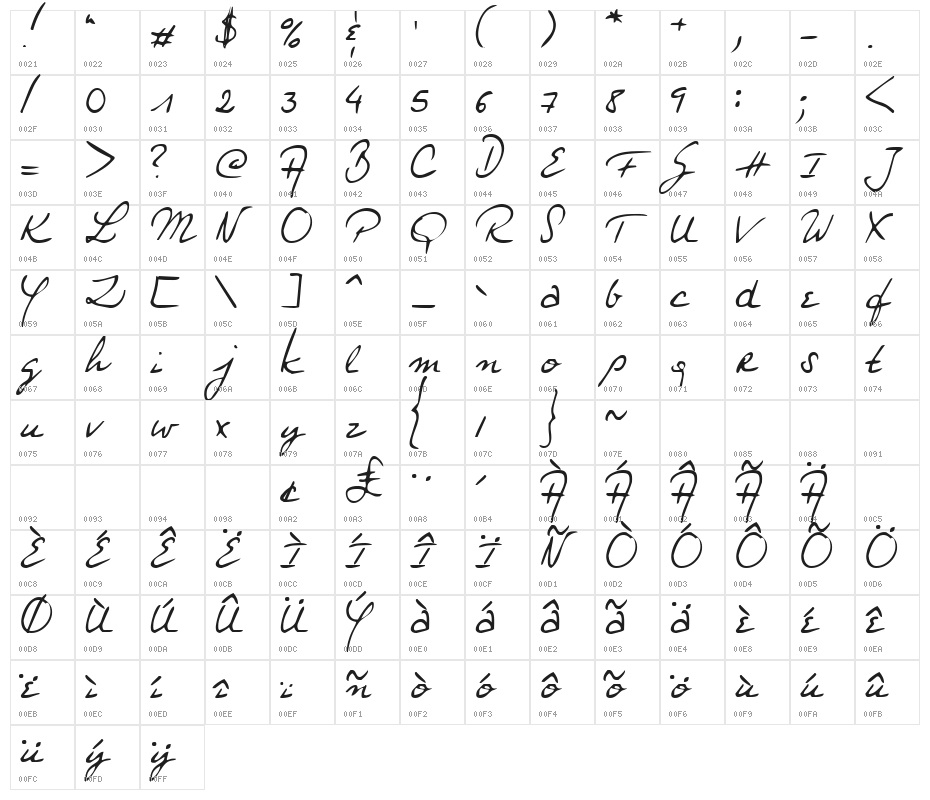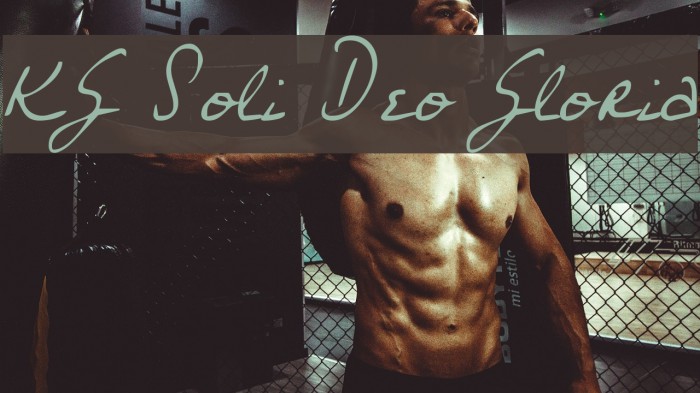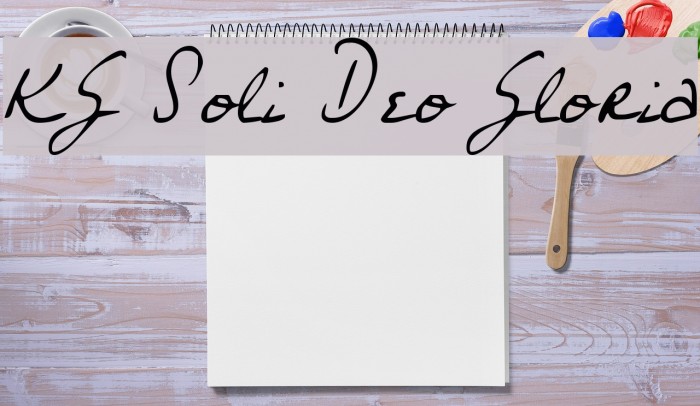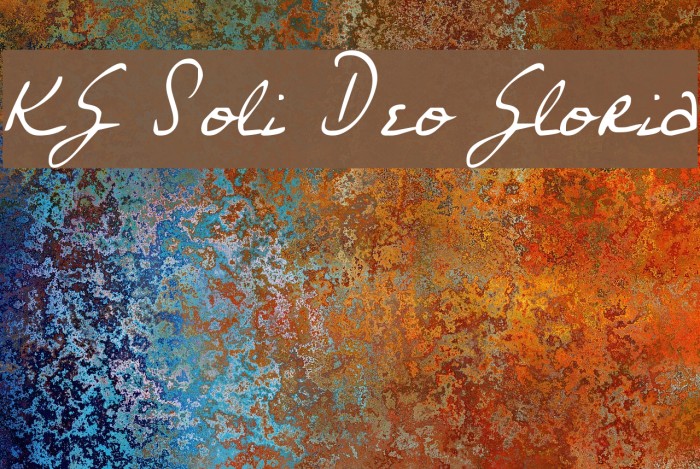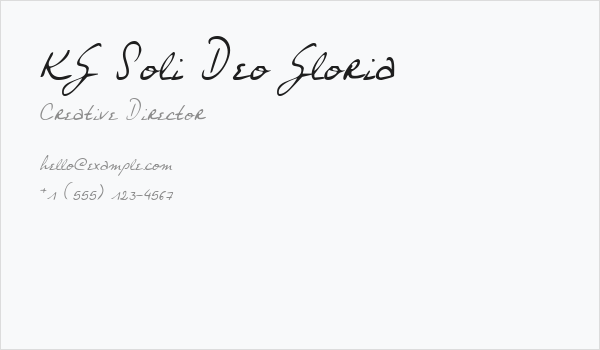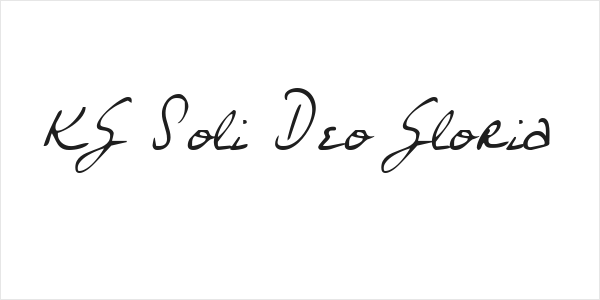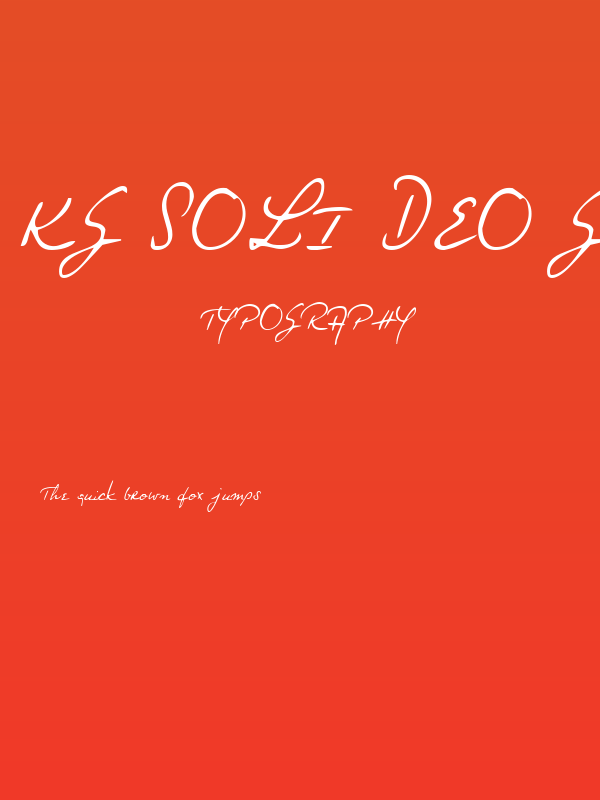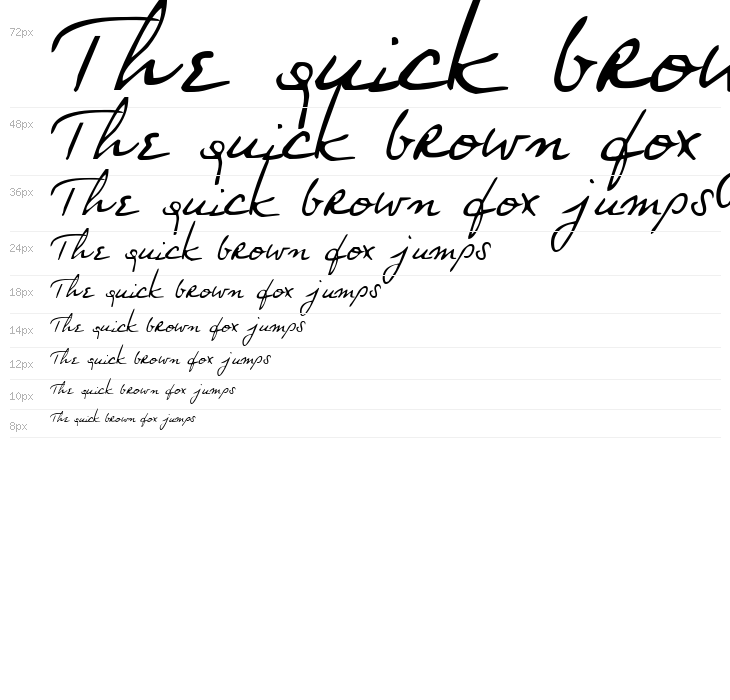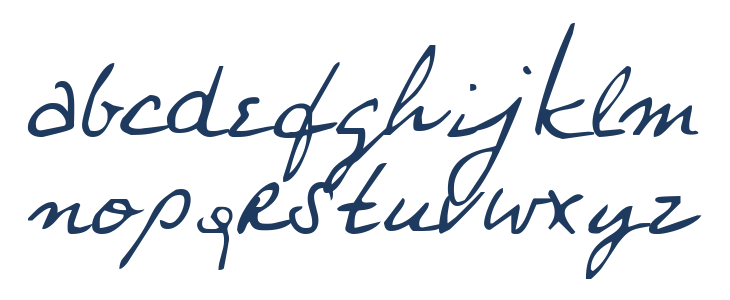
KG Soli Deo Gloria Font
KG Soli Deo Gloria Description
This font features a dynamic and flowing script style, characterized by its elegant and fluid strokes. The letters are interconnected, creating a seamless and cursive appearance that mimics natural handwriting. The uppercase letters are bold and prominent, while the lowercase letters maintain a consistent flow, enhancing readability. Numbers and special characters are crafted with the same attention to detail, ensuring a cohesive look across all elements. The overall design exudes a sense of sophistication and personal touch, making it suitable for projects that require a handwritten aesthetic.
| Overall Style | Elegant, Handwritten |
| Proposed Projects | Ideal for wedding invitations, personal branding, greeting cards, and artistic projects. |